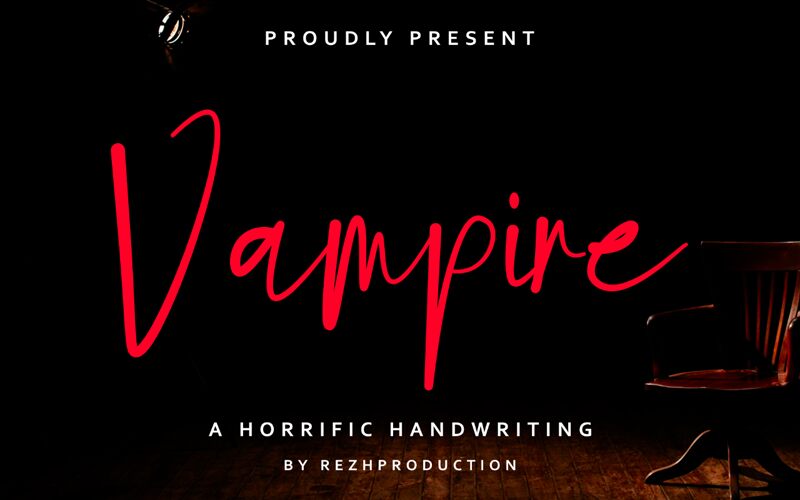
Vampire font is a stylish script font designed by Rezha P. Dewanto
VAMPIRE is a relaxed and stylish script font that exudes distinctiveness and class. This font was particularly crafted for those who need a beautiful and refreshing look to their designs.